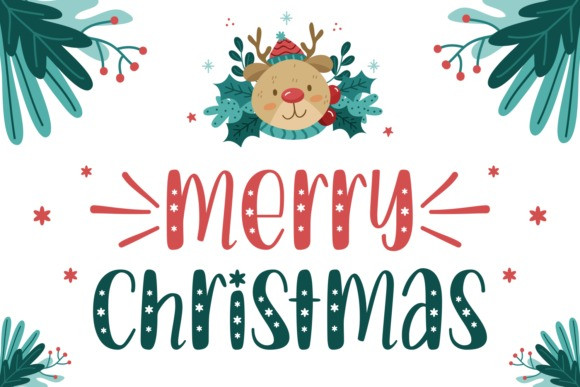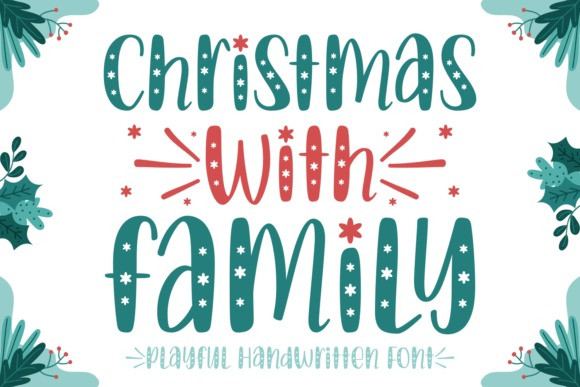
Christmas With Family Font
Christmas With Family Font is a cool and uniquely designed display font. It features sweet little flowers on each character and it will easily turn your designs into pure works of art.